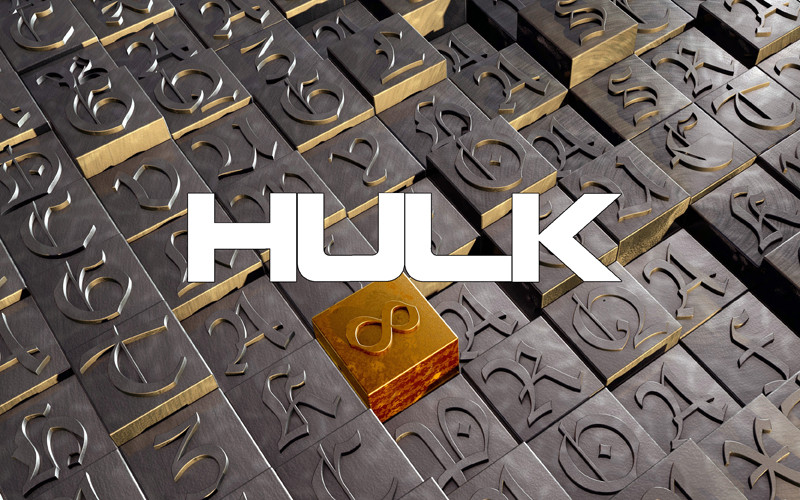
Hulk Font
Directly from the film directed by LOUIS LETERRIER and starring EDWARD NORTON, the new font for all fans of the film.
Direttamente dal film diretto da LOUIS LETERRIER e interpretato da EDWARD NORTON, il font inedito per tutti gli estimatori del film.